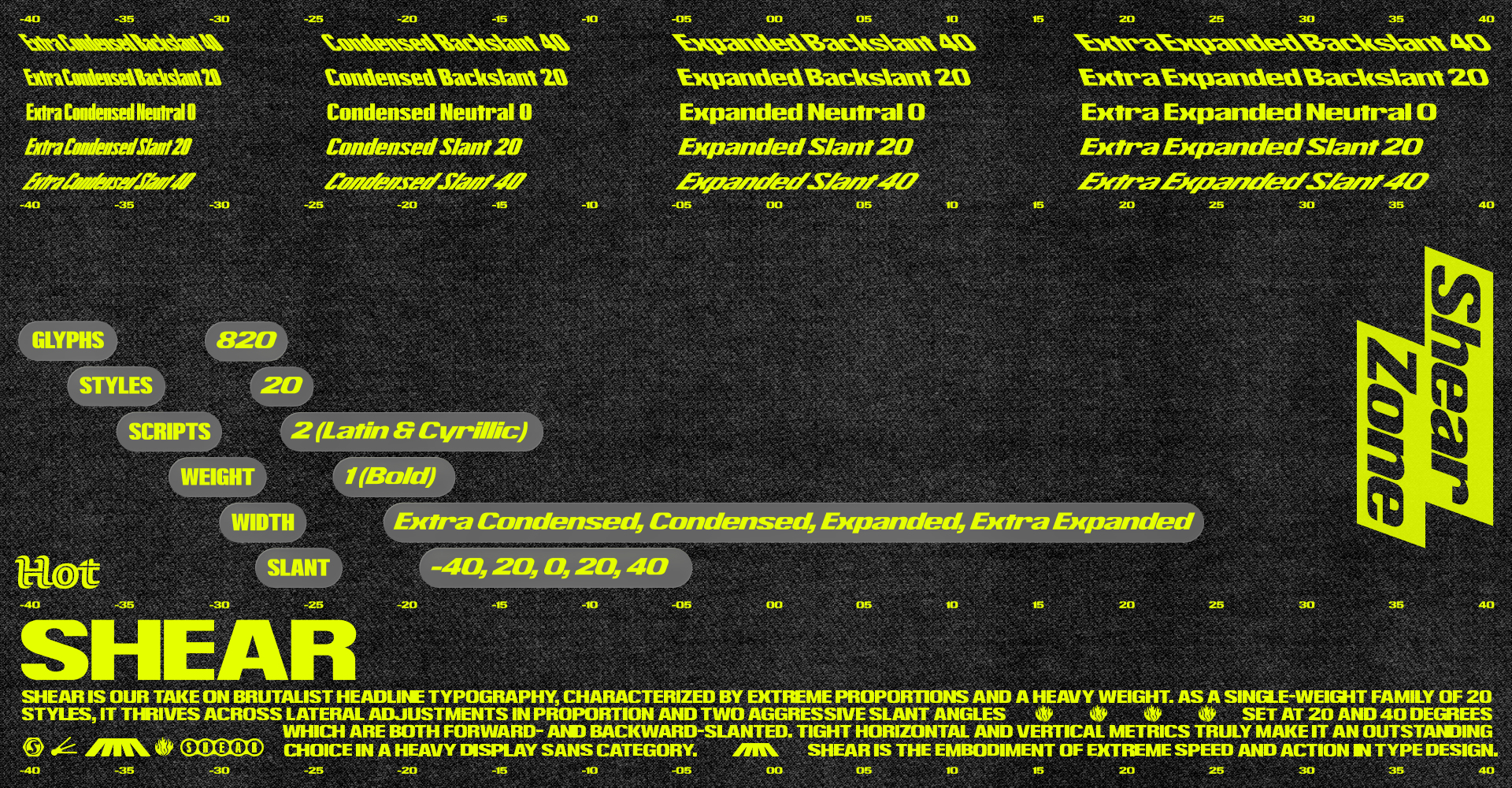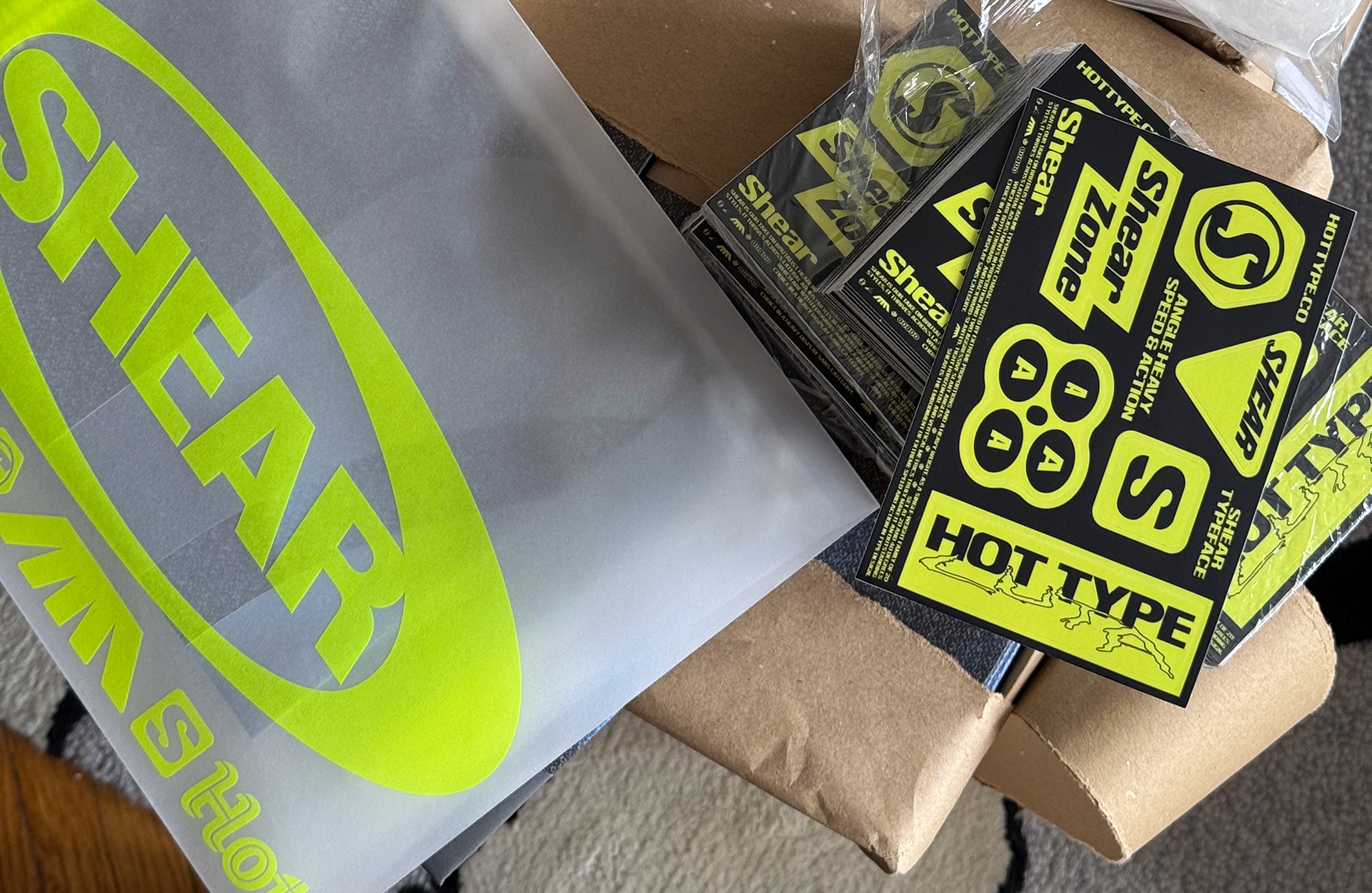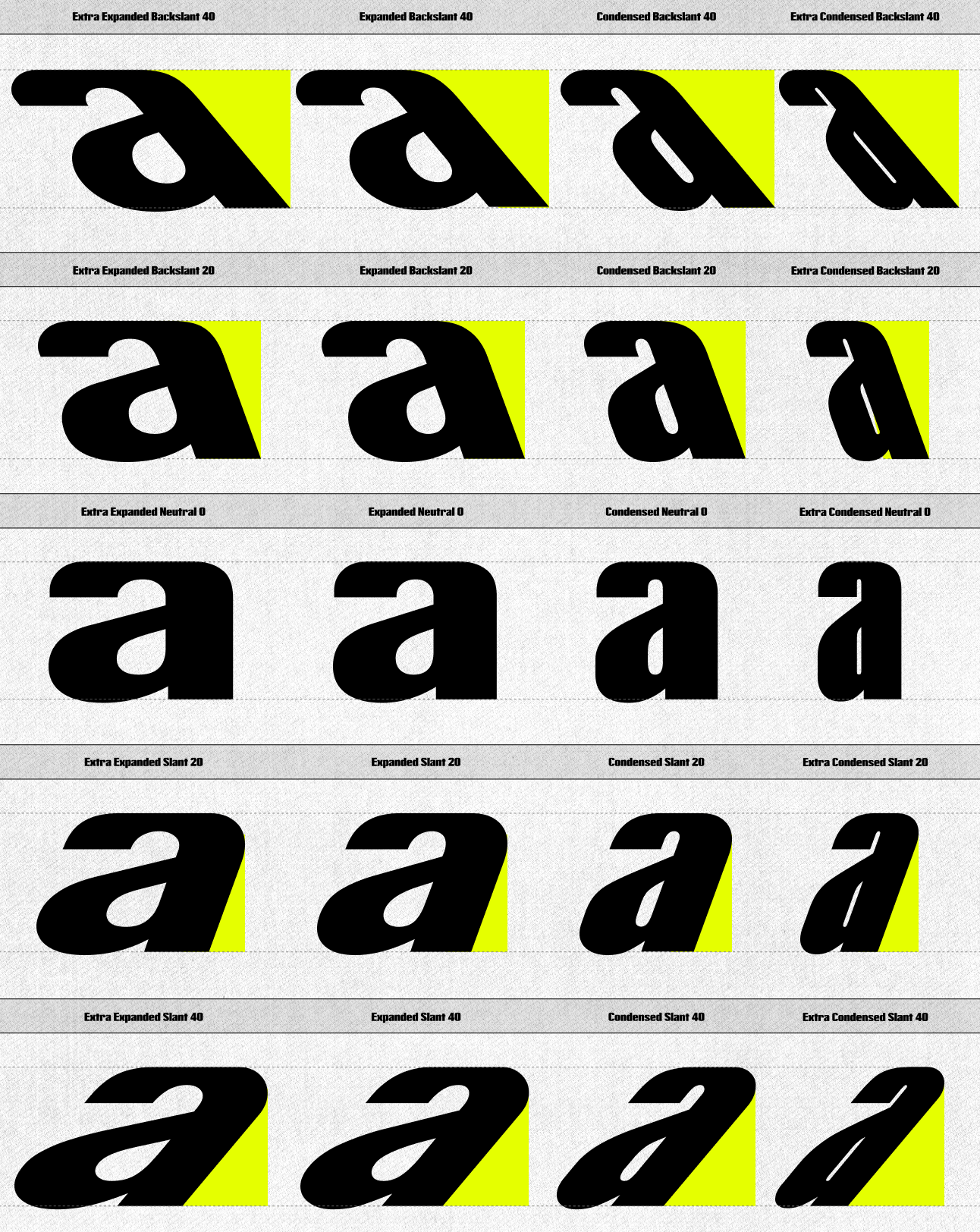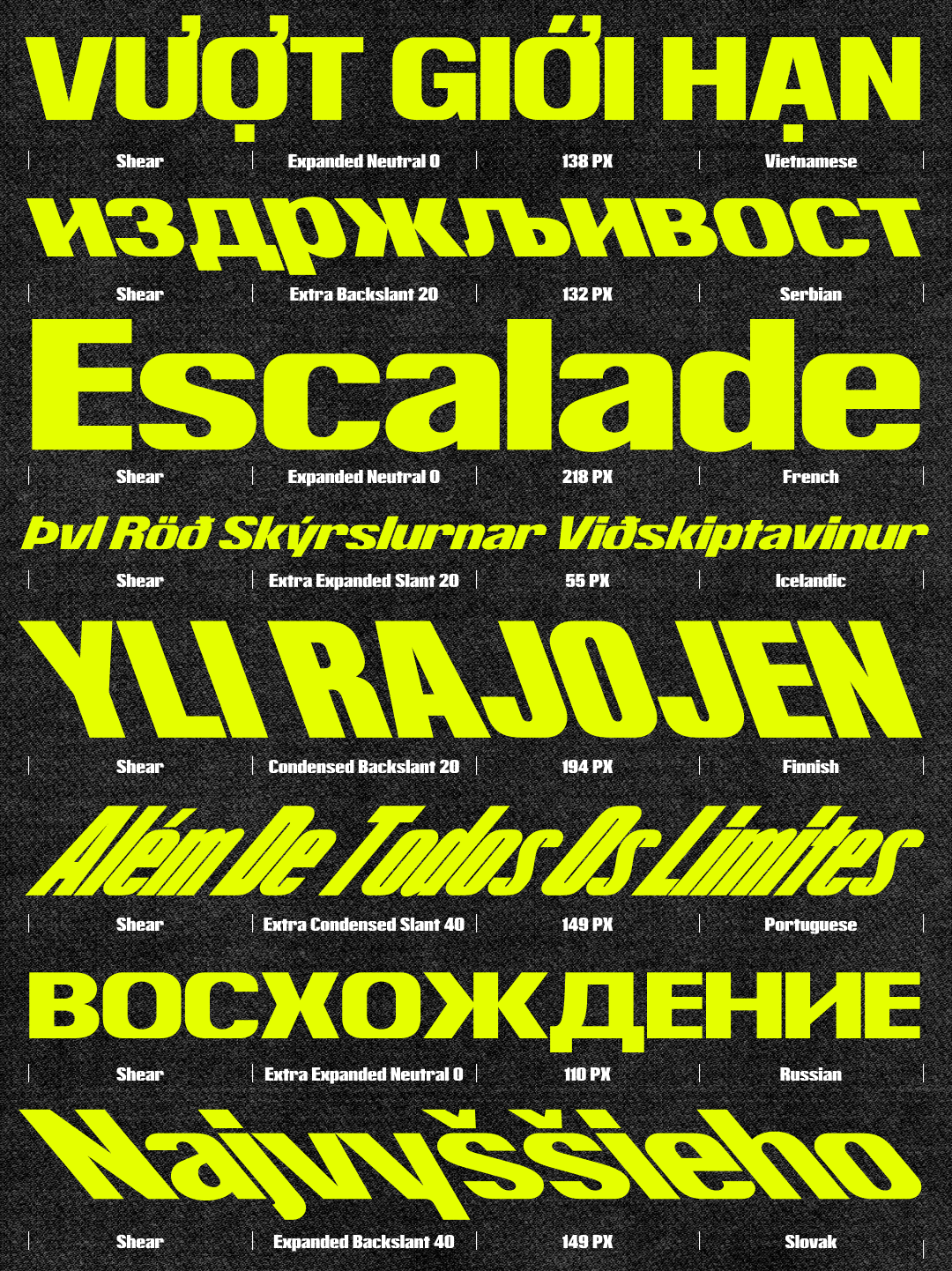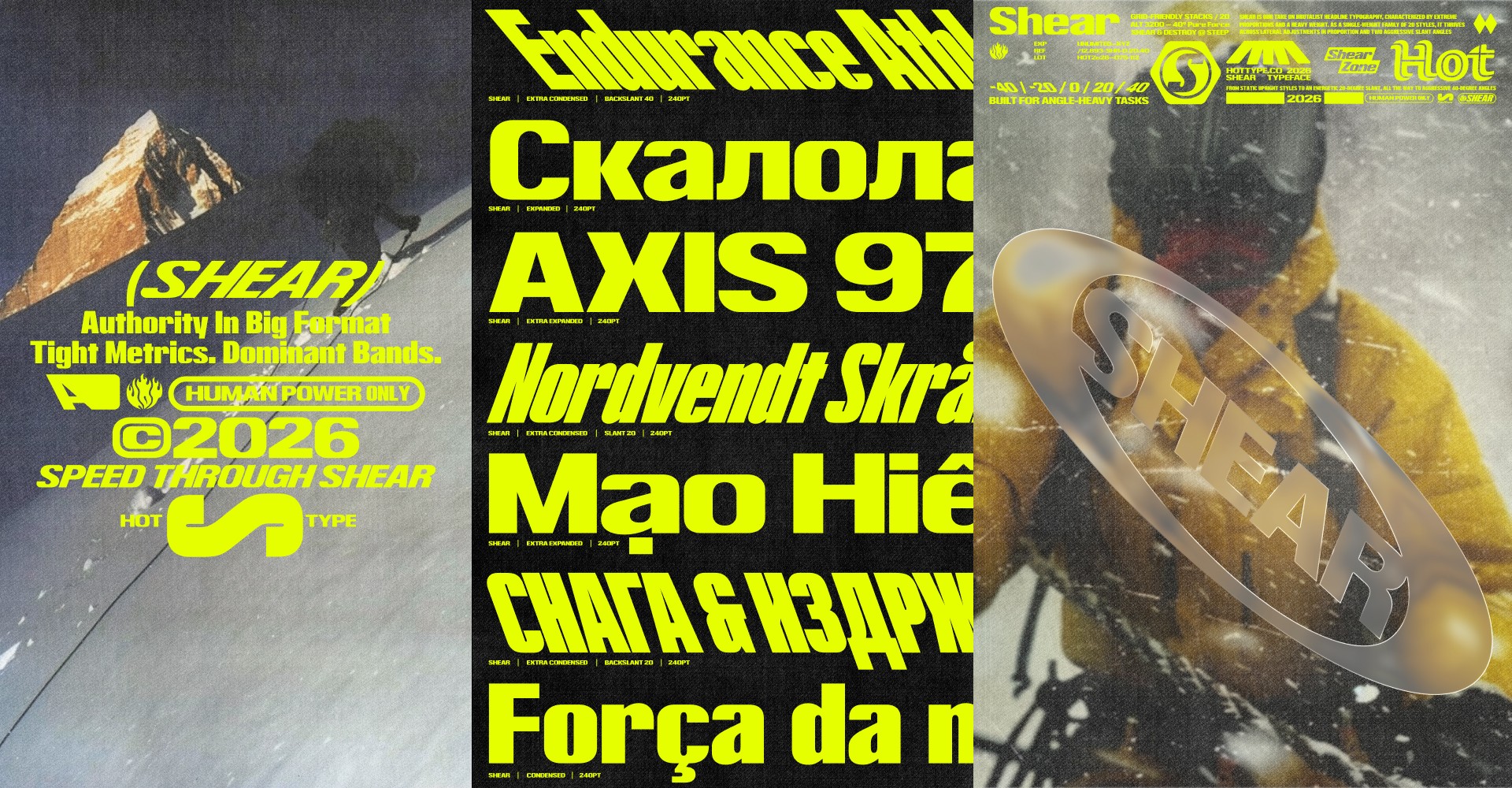
Shear is our take on brutalist headline typography, characterized by extreme proportions and a heavy weight. As a single-weight family of 20 styles, it thrives across lateral adjustments in proportion and two aggressive slant angles set at 20 and 40 degrees—which are both forward- and backward-slanted. Tight horizontal and vertical metrics truly make it an outstanding choice in a heavy display sans category. Shear is the embodiment of extreme speed and action in type design.
Shear style overview
The true quality of Shear lies in its distinct personalities: from static upright styles to an energetic 20-degree slant, all the way to aggressive 40-degree angles. We like to think of Shear as a versatile free rider—unbound by spatial constraints, built for any angle-heavy tasks thrown at it. Razor-sharp by nature and precise in its adaptability, it moves with innovative ideas and feeds on the raw energy that is customary to any truly creative task. A bold beast with a heuristic heart, it is bound to bring a certain dose of je ne sais quoi and steadfastness into any type of work—steady in its process, fast in its intent.